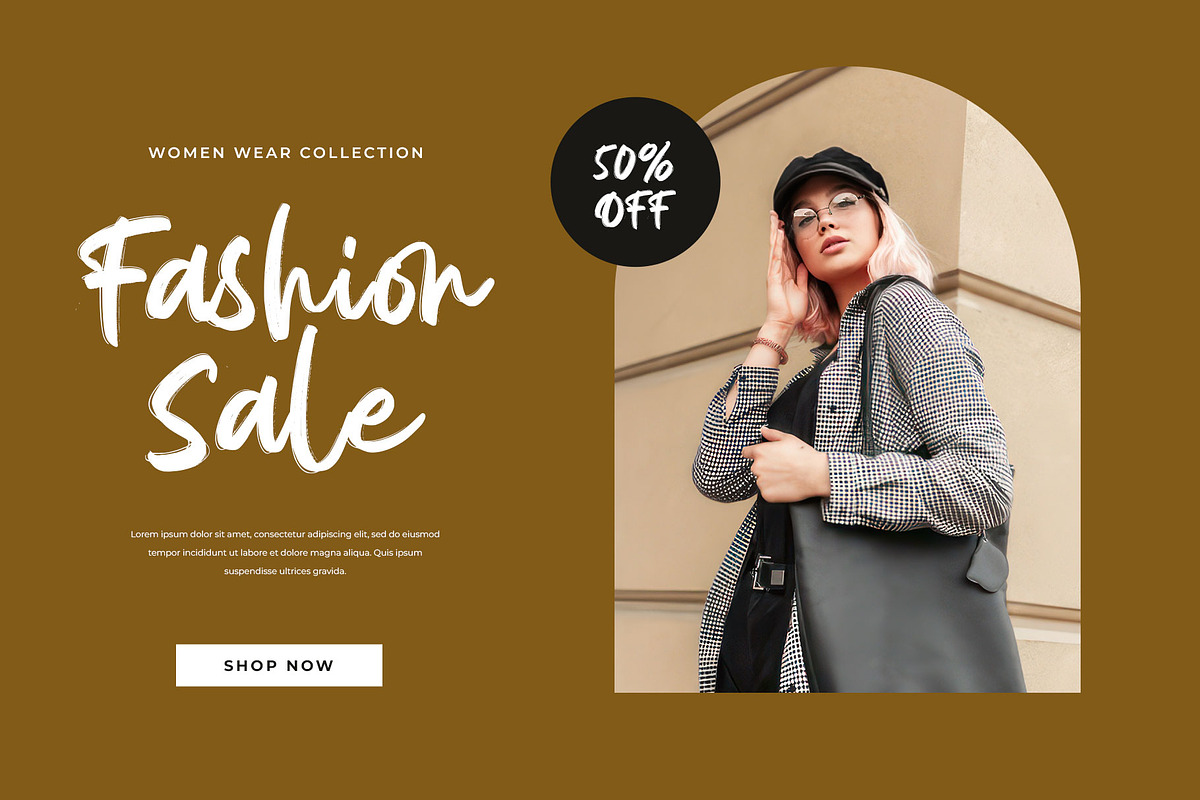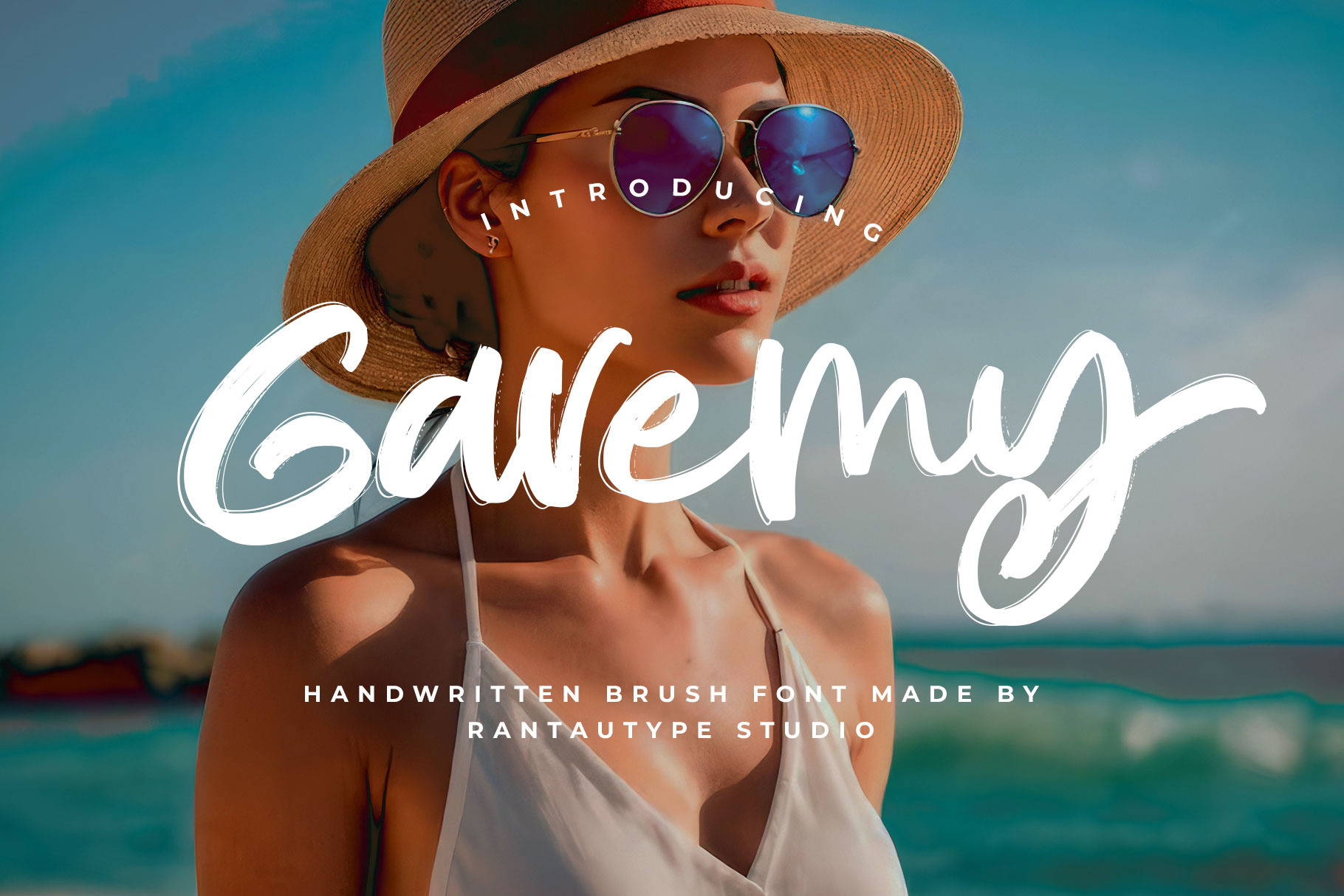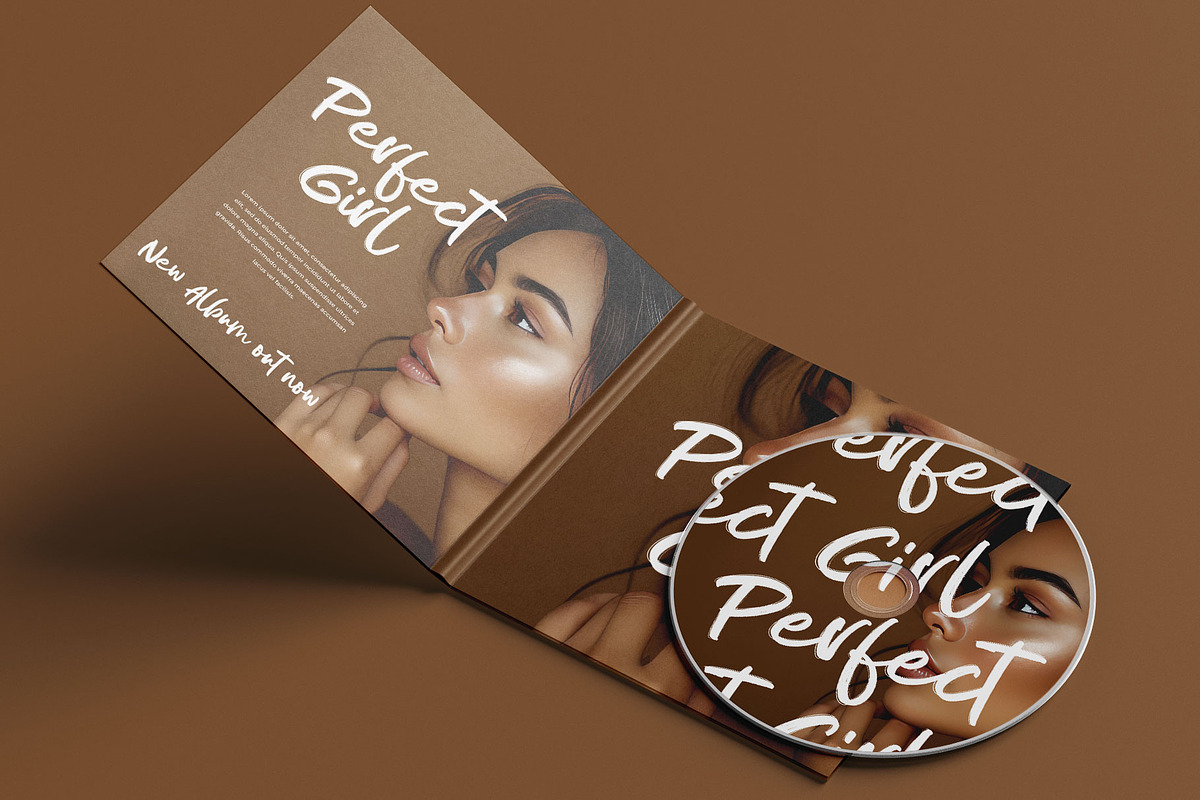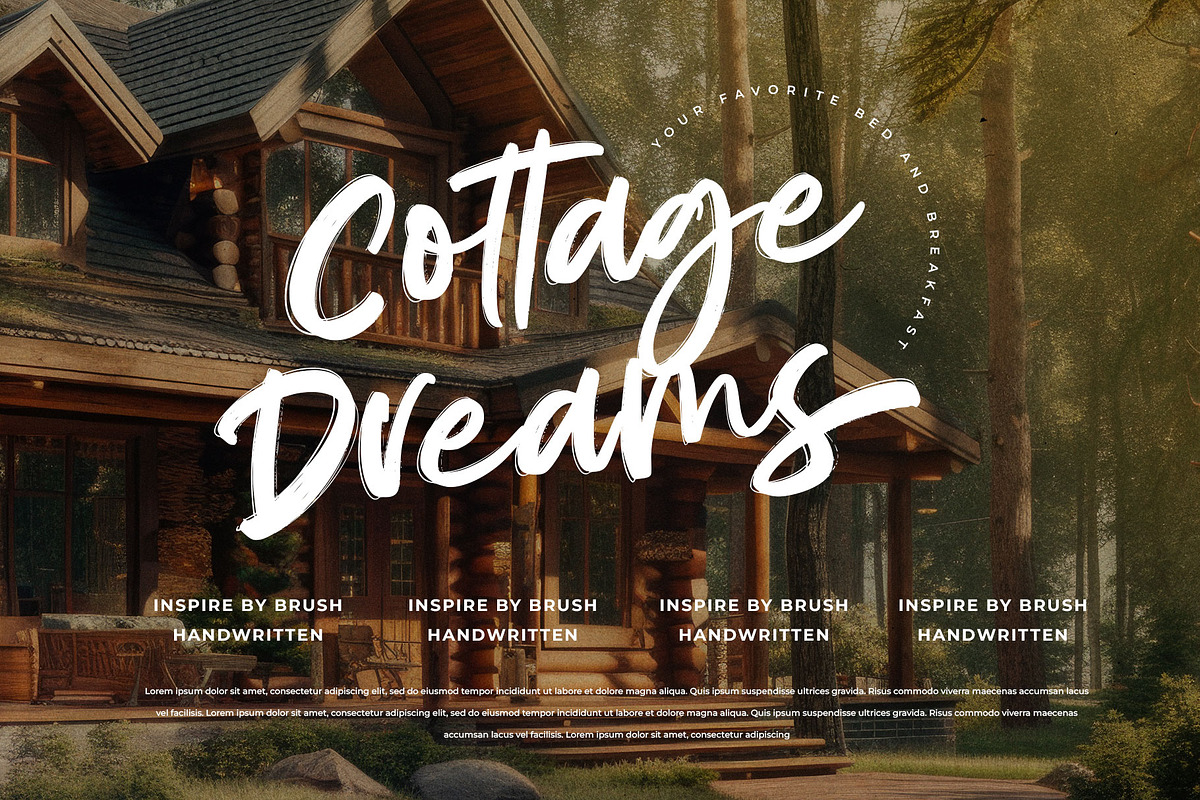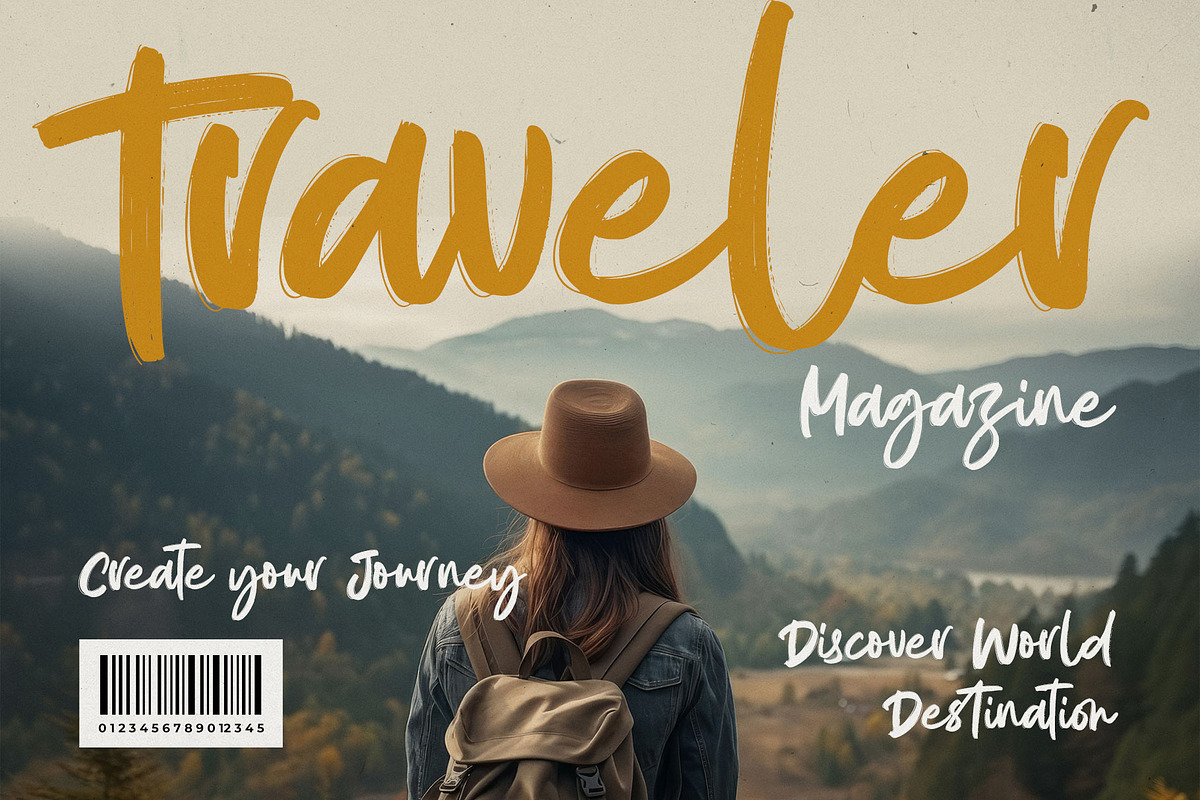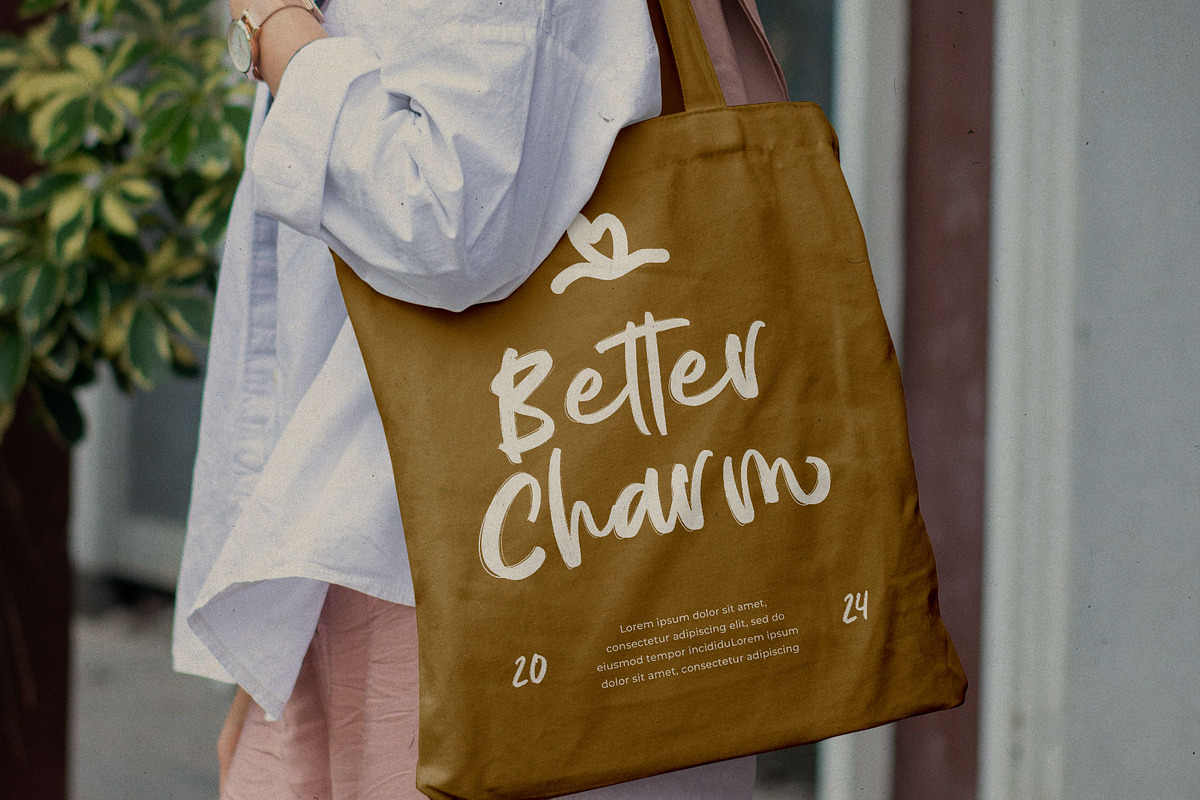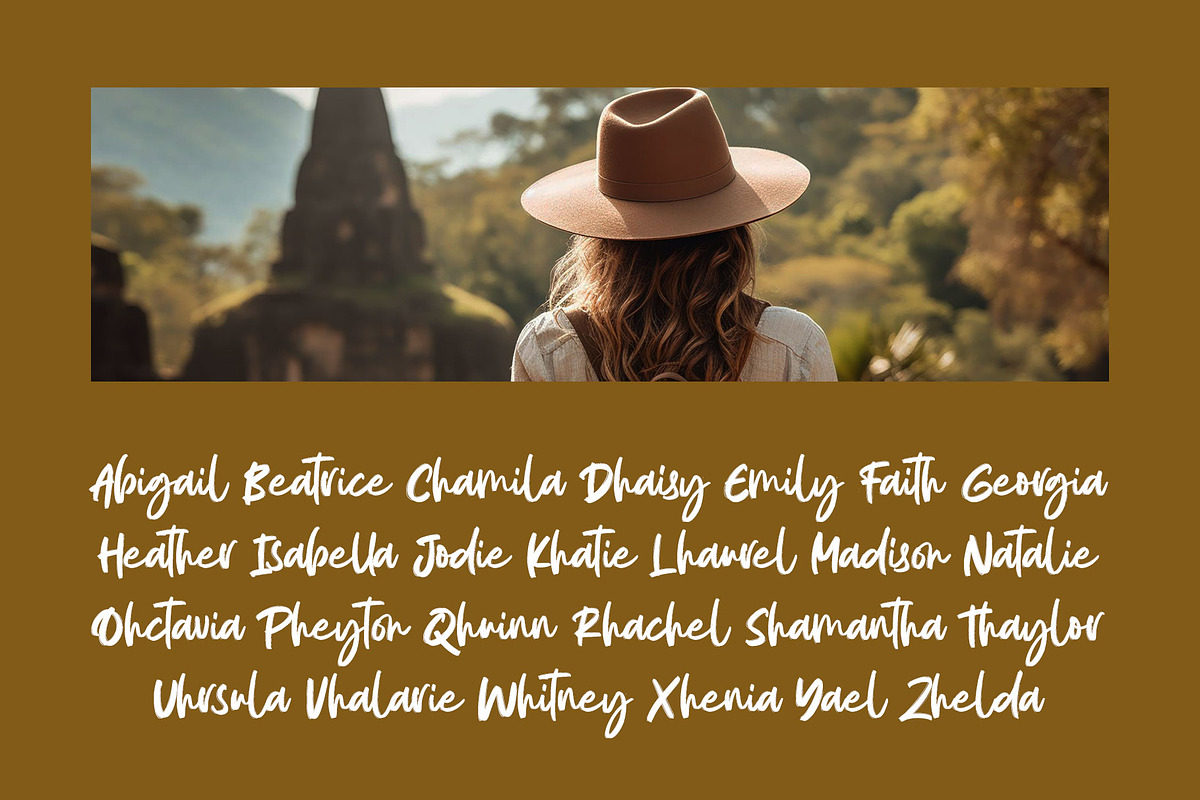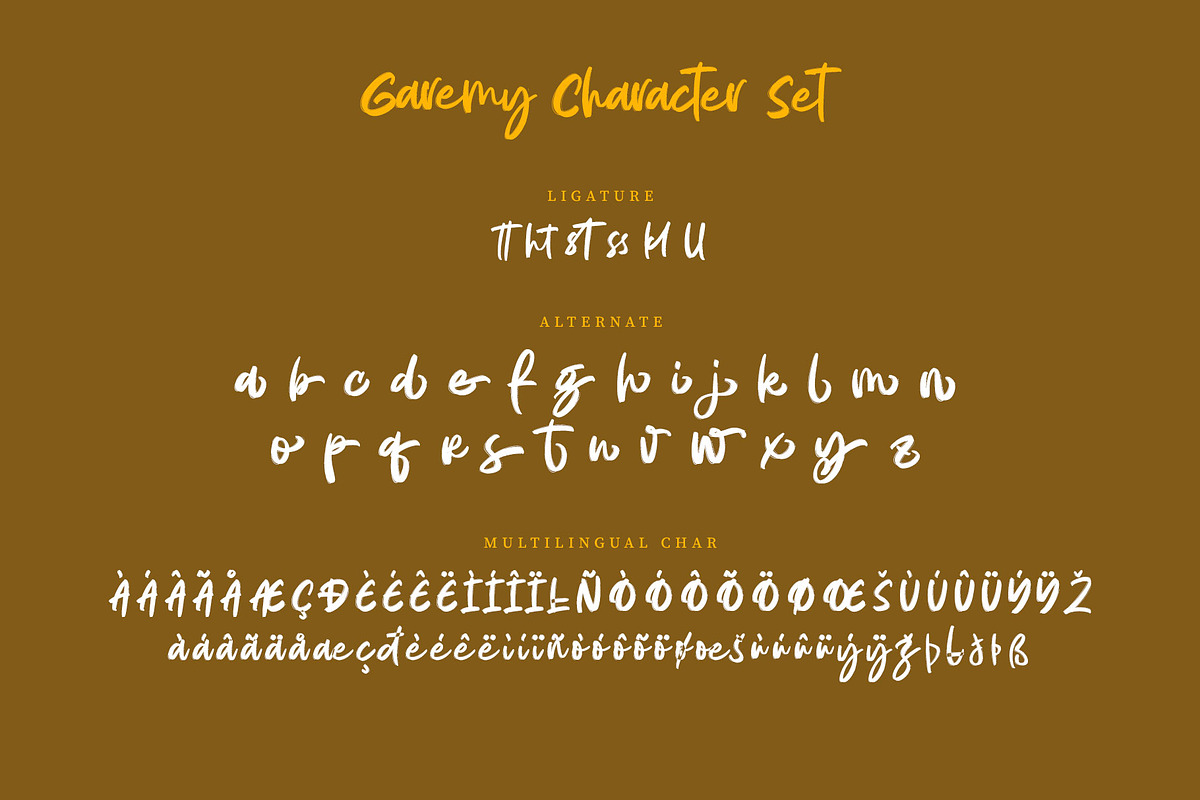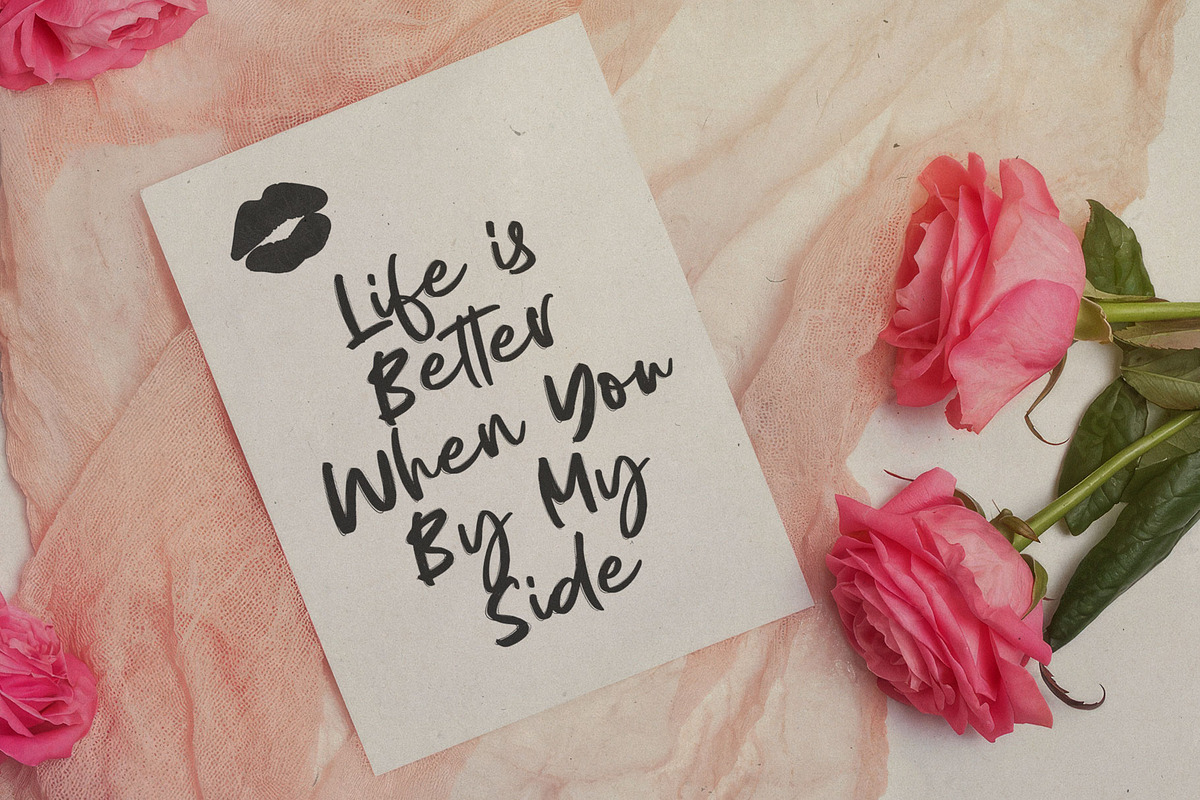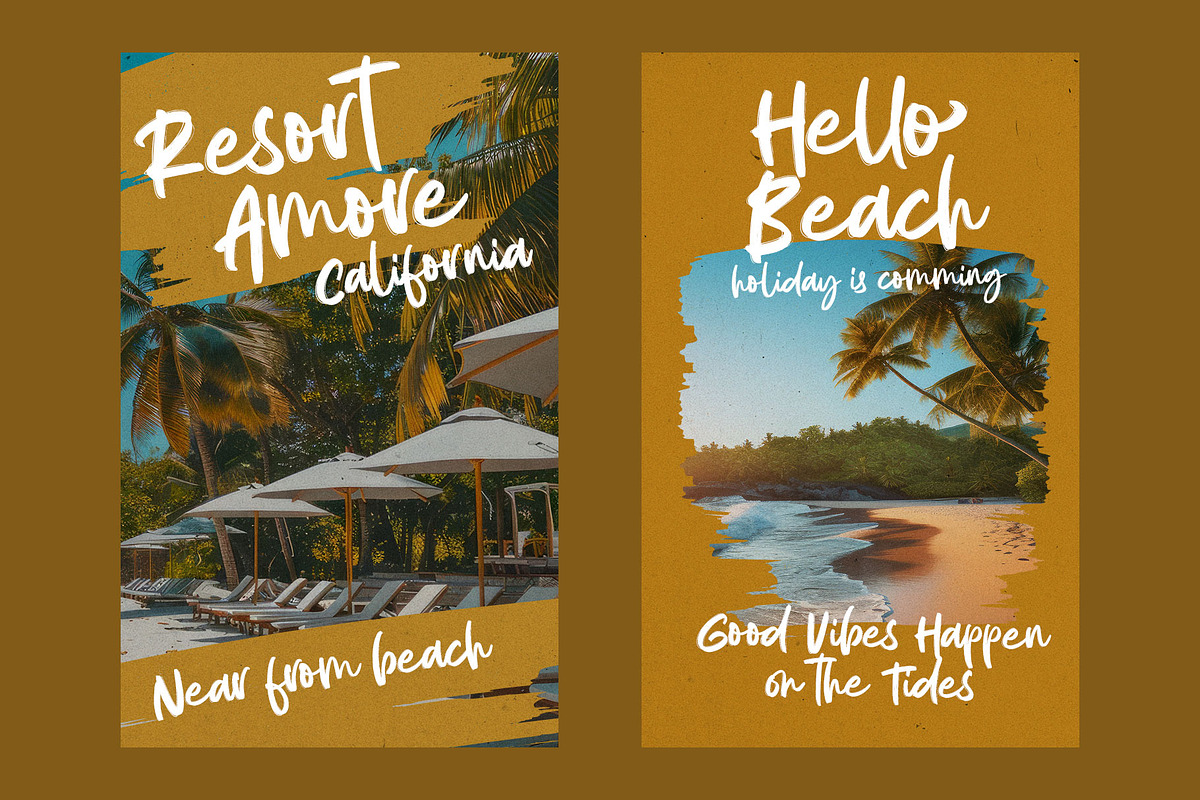
Garemy Handwritten Brush Font
Garemy is handwritten brush font with modern look. Garemy bring aesthetic of scratches brush, it can bring you desing project attractive and sophisticated. Garemy come with alternate, ligature and support multilingual character.
Garemy is a perfectly choice for any creative endeavor, chic, lifestyle design such as logos, advertisements, watermark on photography, stationery, branding project, display and magazine, invitation, corporate brand, product design, label, business project and other project with handwritten taste.
- Standart Glyphs
- Alternate and ligature
Fonts include Multilingual Character for: Afrikaans, Albanian, Asu, Basque, Bemba, Bena, Breton, Chiga, Cornish, Dutch, English, Estonian, Filipino, Finnish, Friulian, Galician, Gusii, Indonesian, Irish, Italian, Kabuverdianu, Kalenjin, Kinyarwanda, Luo, Luxembourgish, Luyia, Machame, North, Oromo, Portuguese, Quechua, Romansh, Rombo, Rundi, Rwa, Samburu, Sango, Sangu, Scottish, Gaelic, Sena, Shambala, Shona, Soga, Somali, Spanish, Swahili, Swedish, Swiss, German.